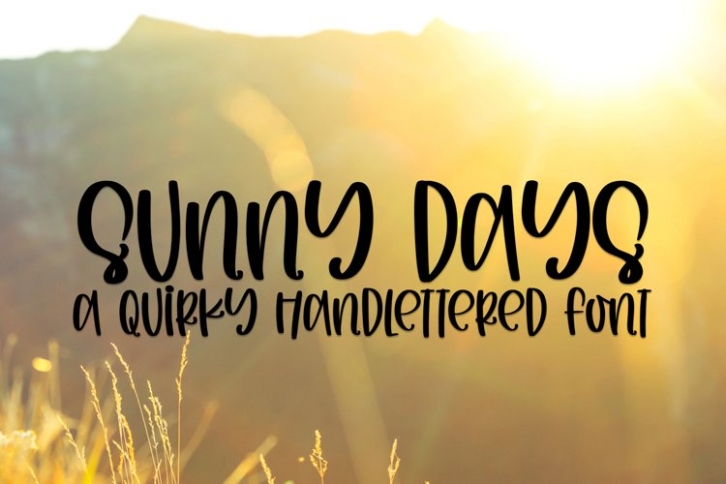
Sunny Days is a beautiful font that was designed by plusstore. It's a great choice for designers and creatives who need such a font. It was released on June 9, 2021 and the file size is 7.22 MB. Sunny Days may give a more youthful, expressive and casual look to your project. It is a very beautiful, refined, elegant, and high-quality font.